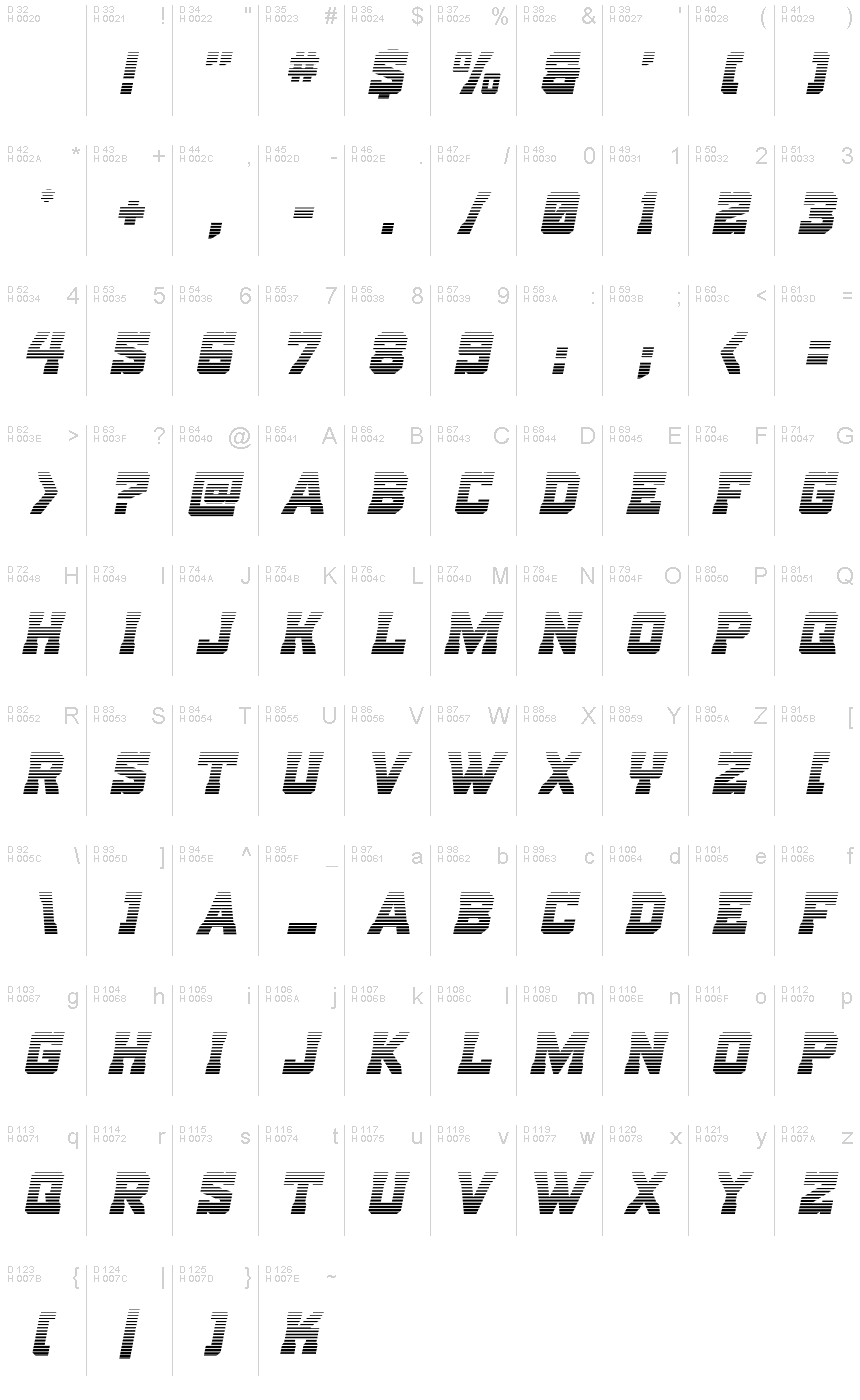
Indian Steeds Gradient Italic
Introducing Daniel Zadorozny's Indian Steeds Gradient Italic font! With its bold old school serif style, this display font gives projects a classic, vintage vibe. Perfect for logos, book covers and wedding invitations.